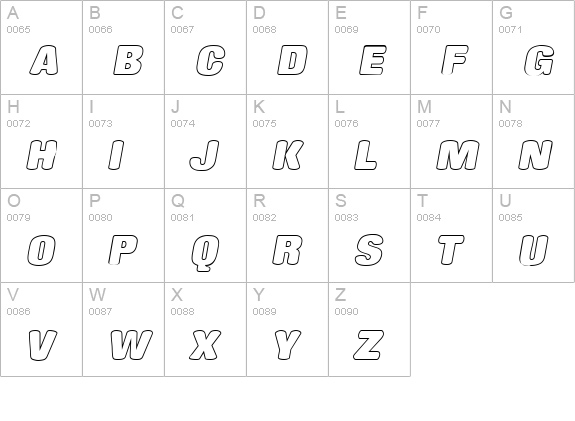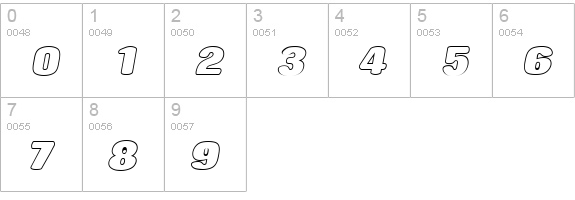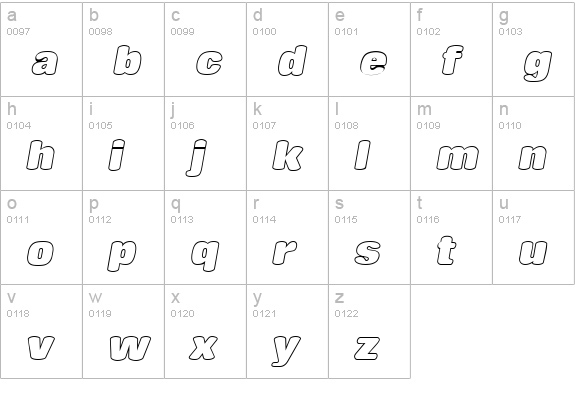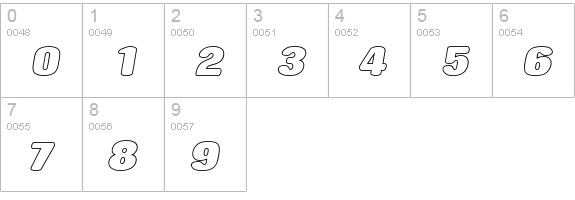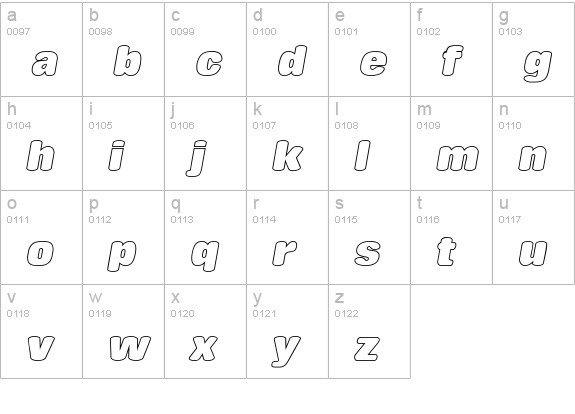
RollingOutline Italic Font Details
RollingOutline Italic is a distinctive, italic variant in the RollingOutline typeface family \xE2\x80\x94 well suited to design and typography projects.
RollingOutline Italic font is a unique and contemporary typeface that exudes elegance and style. Its sleek and dynamic design is perfect for adding a touch of sophistication to any project. The italicized version of RollingOutline font gives a sense of movement and fluidity, making it a versatile choice for both headings and body text. The font features clean lines and a modern look that will make your designs stand out. Whether you are creating a professional document or designing a website, RollingOutline Italic font will elevate your work to the next level. Best of all, RollingOutline Italic font is available for free download at FontsMarket.com. So why wait? Add this stunning font to your collection today and take your design projects to new heights!